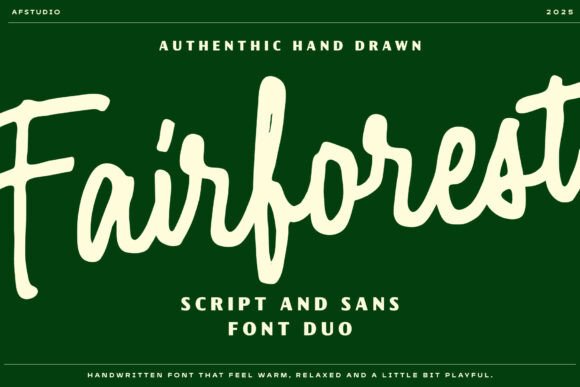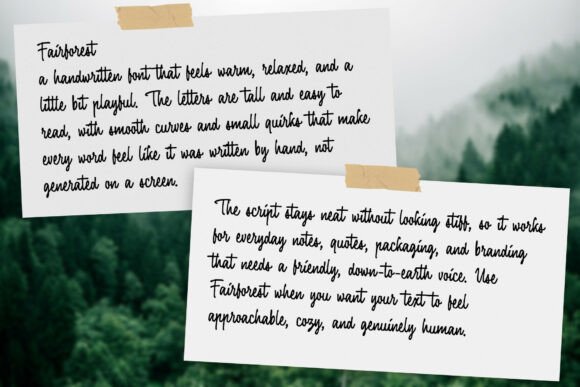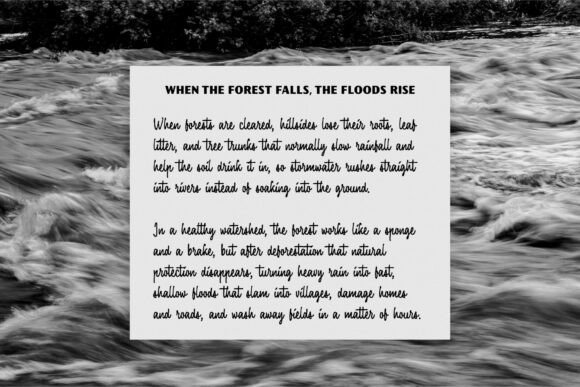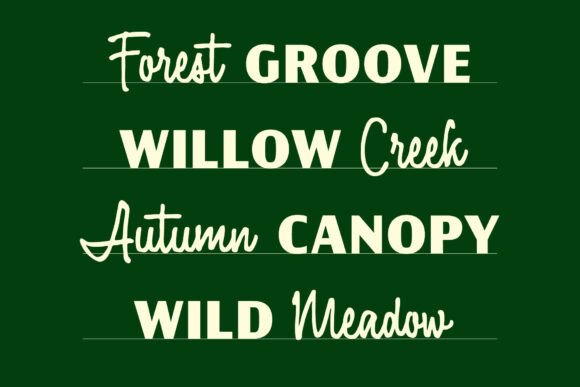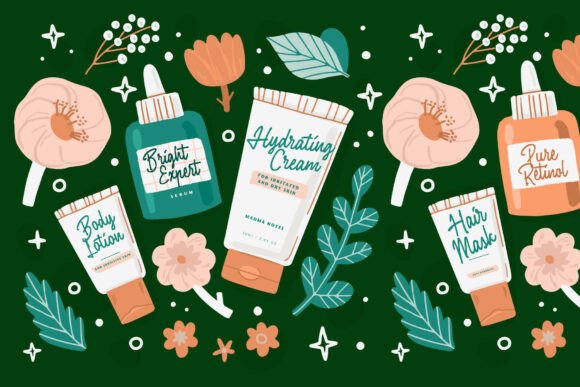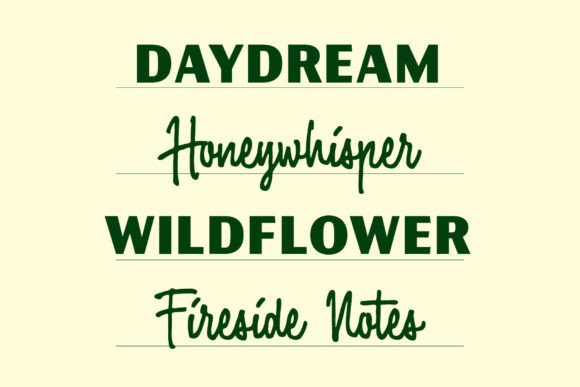
🌳 Fairforest: Authentic Hand-Drawn Duo Font
Discover the charming organic elegance of Fairforest, an authentic hand-drawn font duo that effortlessly blends a natural script with a complementary sans-serif style. This versatile font package is perfect for projects that demand a friendly, artisanal, and down-to-earth aesthetic.
The Core Script Typeface
The core script typeface of Fairforest is defined by its warm, relaxed, and slightly playful flow, featuring beautifully connected letters and a distinctively uneven, brush-like texture that conveys genuine handcrafted artistry. This irregular, handwritten quality adds immediate personality and a touch of vintage nostalgia to any design.
Complementary Sans-Serif Style
Fairforest is not just a single script font, but a duo that includes a complementary sans-serif style. This sans-serif font is perfect for supportive body text or bold accents, allowing you to maintain a cohesive, balanced look in your designs. The clean and crisp lines of the sans-serif font provide a beautiful contrast to the organic feel of the script font.
Fairforest excels in various design projects, including:
- Branding for small businesses: Fairforest’s friendly and artisanal feel makes it perfect for small business branding, helping to establish a personal and sincere connection with customers.
- Creating engaging social media content: The font’s playful and organic feel makes it ideal for social media graphics, helping to capture the attention of your audience.
- Designing warm invitations: Fairforest’s vintage nostalgia and handcrafted artistry make it perfect for designing warm and inviting invitations for special occasions.
- Crafting high-impact packaging: The font’s unique texture and personality make it ideal for packaging design, helping to make your product stand out on store shelves.
Tips for Using Fairforest
Here are some tips for using Fairforest in your designs:
- Use the script for dramatic titles: The script font is perfect for creating eye-catching titles that make a statement.
- Pair with the sans-serif for body text: The sans-serif font provides a clean and crisp contrast to the script font, making it perfect for body text.
- Experiment with font sizes and colors: Fairforest’s versatility allows you to experiment with different font sizes and colors to create a unique look that suits your design.
Fairforest is a unique and versatile font duo that offers a fresh and organic approach to typography. Its hand-drawn script and complementary sans-serif style make it perfect for a wide range of design projects, from branding and social media to packaging and invitations. With its warm, relaxed, and slightly playful flow, Fairforest is sure to add a touch of personality and vintage nostalgia to any design.